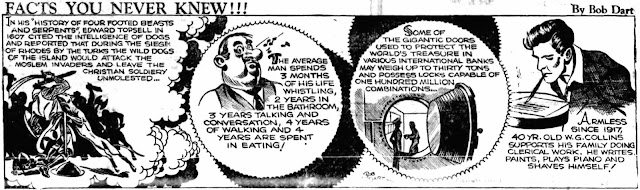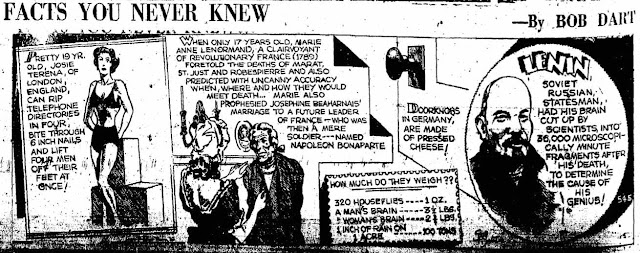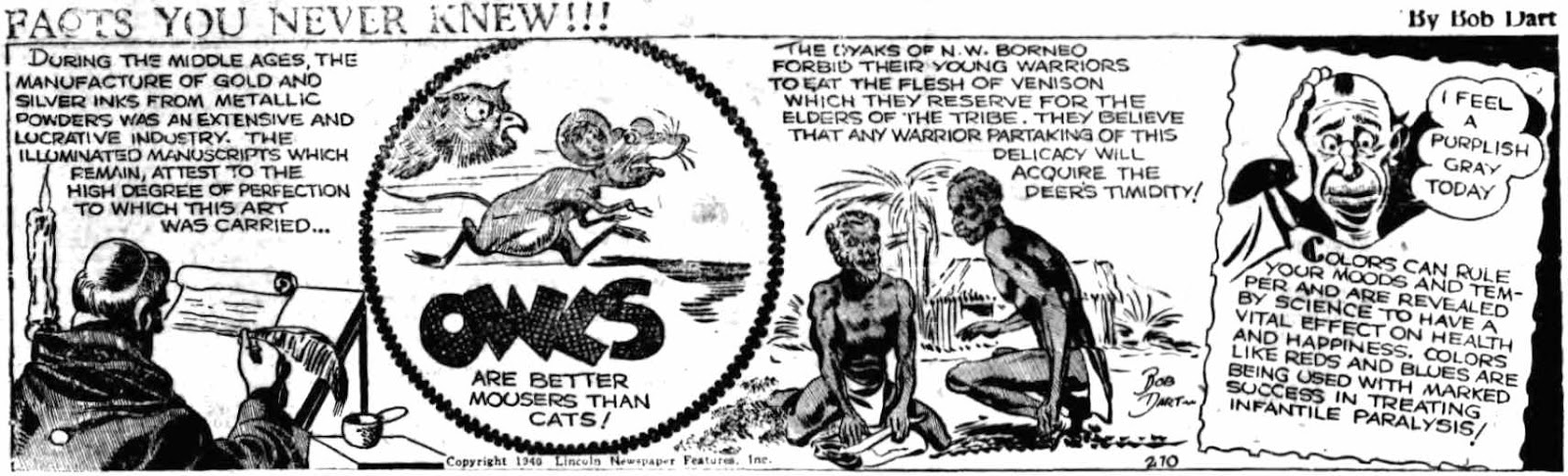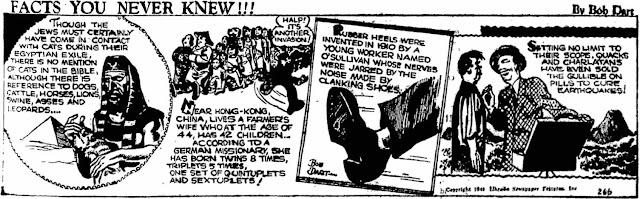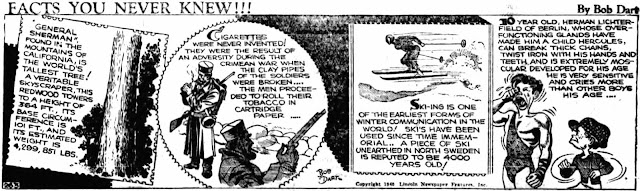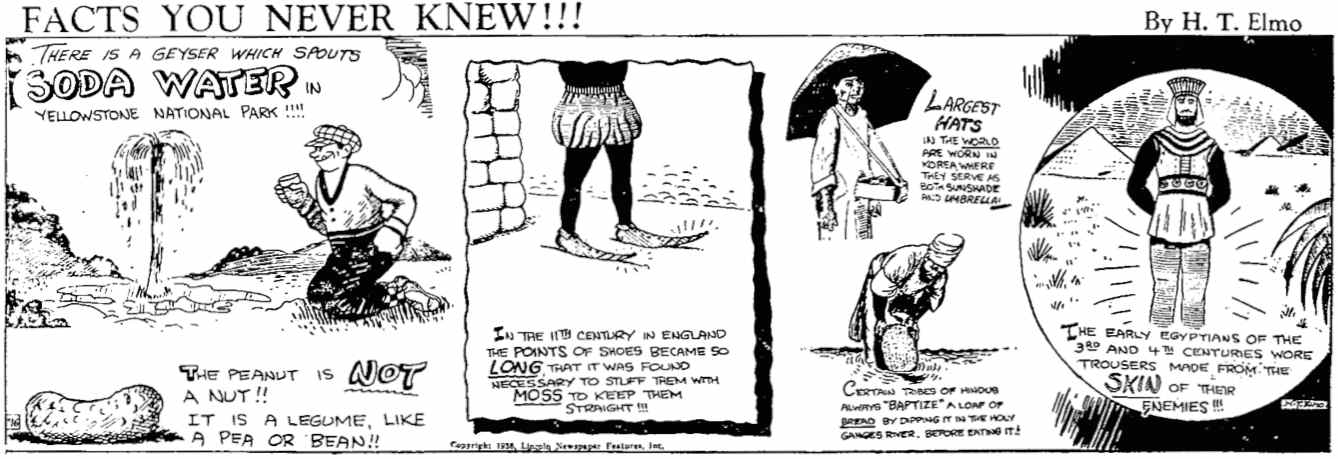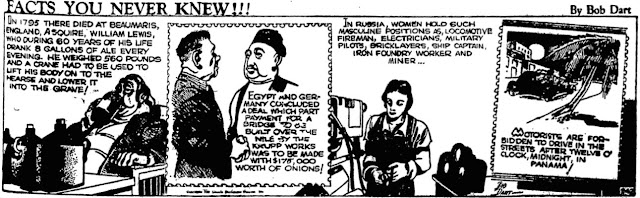
August 28 would have been Kirby’s 100th birthday.
“Facts You Never Knew” was a strip created by cartoonist H.T. Elmo (1903–1992). He is profiled here. The strip was copyrighted on March 20, 1936 and Elmo used the pseudonym Bob Dart. “Facts You Never Knew” was drawn by at least three artists: Elmo, Jack Kirby and an unidentified artist, possibly Irv Tirman.
In 1935 Elmo copyrighted five strips, “Detective Riley”, “Goofus Family”, “Little Buddy”, “Dash Dixon”, and “Laughs from the Day's News!” “Your Health Comes First!!!” was copyrighted a day ahead of “Facts You Never Knew”. All of the strips were distributed through Elmo’s Lincoln Newspaper Features which was based in New York City.
All of the strips were numbered. The lowest number I’ve found for “Facts You Never Knew” is 58 but it was preceded by an unnumbered strip that was published in the weekly newspaper The Attica News (Attica, New York), March 12, 1936; number 58 appeared the following week. The unnumbered “Facts You Never Knew”, signed by Lawrence in the third panel, appeared with three other Lincoln Newspaper Features strips: “Dash Dixon”, “Little Buddy” and “Detective Riley”, all numbered 57. Presumably Elmo created the pseudonyms Bob Dart and Lawrence.
The highest number I’ve found for “Facts You Never Knew” is 552 which appeared in Fords Beacon (New Jersey), August 9, 1945. Number 552 appeared first as 268 then 401. On August 16 and 23, and September 6, 1945, Fords Beacon printed a few more “Facts You Never Knew” that may have been numbers 553, 554 and 556. The Independent-Leader also published possible strip numbers 554 and 555 on August 23 and 30, 1945. The numbers on these strips were obscured or missing. Elmo reused many of the strips once and sometimes twice.
The following newspapers published significant numbers of “Facts You Never Knew” although there were gaps in each run.
Attica News, numbers 57 to 448
Fords Beacon, numbers 69 to 556(?)
Independent-Leader, numbers 361 to 555(?)
Medina Tribune, numbers 57 to 322
San Juan Record, numbers 93 to 196
The Wave, numbers 165 to 327
I believe Kirby’s first “Facts You Never Knew” was number 77 that was used again as number 147. Number 274 was Kirby’s last “Facts You Never Knew” and it reappeared as numbers 406 and 552. Kirby’s run was interrupted several times with strips by Elmo.
Greg Theakston wrote about “Facts You Never Knew” in his books The Complete Jack Kirby, Volume One, 1917–1940 (1997) and The Comic Strip Jack Kirby (2006). Here are the strips in The Complete Jack Kirby, Volume One, 1917–1940; I added keywords to help identify each strip.
82 Melted Butter; England; Fingers; Monograms
86 Egyptians; Mothers; New Zealand; Salt
221 Beggar; Jimmy Dorsey; Lightning; Photomania
253 Lammergeier; Apicius; Portugal; Frank Gilbert
On page 31 is a sidebar “Kirby or Not Kirby? That is the Question” with the strip titled “Curiosities and Oddities”, by Barton, which appeared in the Putnam County News, April 15, 1937. Theakston said he believed “Curiosities and Oddities” was a “lost” Kirby feature. My research found this strip was “Facts You Never Knew” number 64 in the Attica News, April 30, 1936. The strip was signed Lawrence in the Attica News but unsigned and unnumbered in the Putnam County News. Apparently Elmo resold the strip under a different title and artist. Also the “Curiosities and Oddities” art looks more like Elmo than Kirby.
Theakston wrote that Kirby’s mother saved proofs and clippings of her son’s strips and panels in a scrapbook. Theakston did not say how many strips of “Facts You Never Knew” were in the scrapbook. Apparently the scrapbook included strips by Elmo.
These are the “Facts You Never Knew” strips in The Comic Strip Jack Kirby.
82 Melted Butter; England; Fingers; Monograms
85 Chrysanthemum; Peter the Great; Evil Eye; Monte Carlo
87 Invitation Cards; Passports; Mah Jong; Persia
91 Raw Silk; Hair; Lead; Fan
95 Congo; Letter; Sweat; Scalps
97 Phoenician; Tatooed [sic]; Creoles; Handball
108 Minks; Coffee; Napoleon; Copper; Cotton
221 Beggar; Jimmy Dorsey; Lightning; Photomania
226 Martin Benson; Jacques Cartier; Stowaways; Ostriches
251 Emperor Claudius; Beau Brummell; Cardinal Richelieu; Papuans
Theakston said Kirby used the pseudonym Lawrence on the panel “Laughs from the Day’s News”. Panels number 79 (signed) and 88 (unsigned) were included in the first volume of The Complete Jack Kirby. Numbers 79, 87 (unsigned) and 88 (shown twice) appeared in The Comic Strip Jack Kirby. It’s not clear who came up with the pseudonym.
Theakston noted that Kirby also lettered his work. That observation was helpful in identifying strips by Kirby or with Kirby art.
An introduction to Elmo’s drawing style is necessary because his art should not be mistaken for early Kirby work. The following samples of Elmo’s work were found in the Street & Smith movie magazine Picture Play. He produced at least six installments of “Did You Know That” in these issues: November 1932 (below); December 1932 (below); January 1933 (below); February 1933; April 1933; and May 1933.
I have posted the strips, that I believe, are by Kirby in total or in part. The reprinted strips are included as well.
* * *
What follows is an annotated list of “Facts You Never Knew” with links to the newspapers Fords Beacon, Independent-Leader, Medina Tribune and San Juan Record. Images from the Attica News and The Wave are from the Old Fulton New York Postcards website. In addition to “Facts You Never Knew”, some newspapers had the Kirby panels “Laughs from the Day's News!”, “Your Health Comes First!!!” and/or “Our Puzzle Corner” on the same page.
The Attica News printed this advertisement on March 5, 1936.
57 Mayflower; Mississippi River; Toga; General Sherman
Attica News, March 12, 1936 0828.pdf; Medina Tribune, May 28, 1936
Attica News, March 19, 1936 0836.pdf; Medina Tribune, June 11, 1936; Smithtown Star, March 25, 1936 00044_2.pdf plus “Our Puzzle Corner” 58
59 Silk; Hair Color (art by another artist, possibly Kirby although she doesn’t look like other Kirby women); Book Monument; Cow Tree
Attica News, March 26, 1936 0844.pdf; Medina Tribune, June 18, 1936
60 (also 138) Fish-Pie; Walnut; Sheep’s Tails; Cobra Meat; Silk Garments
Attica News, March 26, 1936 0844.pdf; Medina Tribune, June 18, 1936
Below is a panel from “Detective Riley” number 175, a swipe from the strip above. The panel was printed in The Wave, July 7, 1938.
60 (also 138) Fish-Pie; Walnut; Sheep’s Tails; Cobra Meat; Silk Garments
Attica News, April 2, 1936 0852.pdf; Medina Tribune, June 25, 1936
61 Strings; Healing Rock; Fujiyama; Pick and Shovel
Attica News, April 9, 1936 0860.pdf; Smithtown Star, April 15, 1936 00054_2.pdf plus “Our Puzzle Corner” 61
62 Lakes; Einstein; Coffee (drawing of head used again in “Facts” 105); Marriage; Mail Carriers
Attica News, April 16, 1936 0868.pdf; Smithtown Star, April 22, 1936 00057_2.pdf plus “Our Puzzle Corner” 62
63 Trousers; Whiskers; Oysters; Coconuts; Castor Oil
Attica News, April 23, 1936 0875.pdf; Smithtown Star, April 29, 1936 00060_2.pdf plus “Our Puzzle Corner” 63
64 Gorillas; Elephants; Siberia; Brain; Bakery
Attica News, April 30, 1936 0883.pdf
65 Pirannas; Valparaiso, Chile; One Dollar; Ice-Boxes; Sturgeon
Attica News, May 7, 1936 0891.pdf; Medina Tribune, July 2, 1936; Smithtown Star, May 13, 1936 00066_2.pdf plus “Our Puzzle Corner” 65
66 San Luis Park; Silkworm Cocoon; Polar Bears; Splinter; Oriental Goby; Mt. Mwariye
Attica News, May 14, 1936 0899.pdf; Medina Tribune, July 9, 1936
67 Chimpanzee; Olive Trees; Butter; Heart; Muskrats; Tailor
Attica News, May 21, 1936 0907.pdf; Medina Tribune, July 16, 1936
68 Swimming Suits; Bicycle Race; Blind Fish; Phoenicians; Kangaroos
Attica News, May 28, 1936 0915.pdf; Medina Tribune, July 23, 1936
69 (also 139) Waste-Baskets; Lion Skin; Skunks; Stale Cake; Carnations; Pork
Attica News, June 4, 1936 0923.pdf; Fords Beacon, May 29, 1936; Medina Tribune, August 6, 1936
Attica News, April 9, 1936 0860.pdf; Smithtown Star, April 15, 1936 00054_2.pdf plus “Our Puzzle Corner” 61
Attica News, April 16, 1936 0868.pdf; Smithtown Star, April 22, 1936 00057_2.pdf plus “Our Puzzle Corner” 62
Attica News, April 23, 1936 0875.pdf; Smithtown Star, April 29, 1936 00060_2.pdf plus “Our Puzzle Corner” 63
Attica News, April 30, 1936 0883.pdf
Attica News, May 7, 1936 0891.pdf; Medina Tribune, July 2, 1936; Smithtown Star, May 13, 1936 00066_2.pdf plus “Our Puzzle Corner” 65
Attica News, May 14, 1936 0899.pdf; Medina Tribune, July 9, 1936
Attica News, May 21, 1936 0907.pdf; Medina Tribune, July 16, 1936
Attica News, May 28, 1936 0915.pdf; Medina Tribune, July 23, 1936
Attica News, June 4, 1936 0923.pdf; Fords Beacon, May 29, 1936; Medina Tribune, August 6, 1936
Numbers 70 to 76 are by Elmo.
70 (also 140) Holland; Carpet Tacks; Ben Franklin; Borneo; Ermine; Vest and Fez
Attica News, June 11, 1936 0931.pdf; Medina Tribune, July 30, 1936
Attica News, June 18, 1936 0939.pdf; Medina Tribune, August 20, 1936
Attica News, June 25, 1936 0946.pdf; Medina Tribune, August 13, 1936
Attica News, July 2, 1936 0954.pdf; Medina Tribune, August 27, 1936
Attica News, July 9, 1936 0961.pdf; Fords Beacon, July 24, 1936; Medina Tribune, September 3, 1936
Attica News, July 16, 1936 0967.pdf; Fords Beacon, July 10, 1936; Medina Tribune, September 10, 1936
Attica News, July 23, 1936 0973.pdf; Fords Beacon, July 17, 1936; Medina Tribune, September 17, 1936; Smithtown Star, July 29, 1936 00103_2.pdf plus “Our Puzzle Corner” 76
Numbers 77 through 98 are entirely or in part by Kirby; note his lettering style. The best available images are shown.
77 (also 147) Greeks; Human Hair; Louis XII; Australian Tribes
Attica News, August 6, 1936 0987.pdf
79 (also 149) Crow Indians; Australia; Egyptians; New South Wales
Attica News, August 13, 1936 0993.pdf
80 (also 150) Sir Walter Scott; Eyebrows; Navajos; Zulu Rain Doctor
Attica News, August 20, 1936 0998.pdf; Fords Beacon, August 14, 1936 plus Kirby’s “Your Health Comes First” 80
81 (also 151) Caterpillars; Hot Stones; Romans; Hebrews
Attica News, August 27, 1936 1005.pdf; Fords Beacon, August 21, 1936 plus Kirby’s “Your Health Comes First” 81; Medina Tribune, November 19, 1936
82 (also 152) Melted Butter; England; Fingers; Monograms
Attica News, September 10, 1936 1017.pdf; Fords Beacon, August 28, 1936 plus Kirby’s “Your Health Comes First” 82; Medina Tribune, November 12, 1936
83 (also 153) Golf; Women Actors; Australia; Lynching
Attica News, September 17, 1936 1022.pdf; Fords Beacon, September 4, 1936 plus Kirby’s “Your Health Comes First” 83; Medina Tribune, November 5, 1936
84 (also 154) New Born Baby; Black Cats; Arabs; Grave
Attica News, October 8, 1936 1040.pdf; Fords Beacon, September 11, 1936 plus Kirby’s “Your Health Comes First” 84 ; Medina Tribune, September 24, 1936
85 (also 155) Chrysanthemum; Peter the Great; Evil Eye; Monte Carlo
Attica News, October 15, 1936 1048.pdf; Medina Tribune, November 26, 1936; Smithtown Star, September 30, 1936 00136_2.pdf plus “Our Puzzle Corner” 85
86 (also 156) Egyptians; Mothers; New Zealand; Salt
Attica News, October 22, 1936 1056.pdf; Medina Tribune, December 3, 1936
87 (also 157) Invitation Cards; Passports; Mah Jong; Persia (by Elmo)
Attica News, November 5, 1936 1073.pdf; Medina Tribune, December 10, 1936
88 (also 158) Salt; Anvil; Chopsticks; Beauty
Attica News, November 12, 1936 1081.pdf; Medina Tribune, December 24, 1936; Smithtown Star, October 21, 1936 00148_2.pdf plus “Our Puzzle Corner” 88
89 (also 159) Charlemagne; Emporor [sic] of Germany; Uganda; Primitive Man
Attica News, November 19, 1936 1088.pdf; Medina Tribune, December 31, 1936
90 (also 160) Sneeze; Donkey; Hair; Wine Cup
Attica News, November 26, 1936 1096.pdf; Medina Tribune, January 7, 1937; Smithtown Star, November 4, 1936 00156_2.pdf plus “Our Puzzle Corner” 90
91 (also 161) Raw Silk; Hair; Lead; Fan
Attica News, December 3, 1936 1104.pdf; Medina Tribune, January 14, 1937
92 (also 162) Vikings; Two Names; Slapping; Coats (by Elmo); New Moon
Attica News, December 24, 1936 1126.pdf; Medina Tribune, January 21, 1937
93 (also 163) Barber Poles; Loki; Comanche Indians; Sharks
Attica News, December 31, 1936 1134.pdf; Medina Tribune, January 28, 1937; San Juan Record, December 24, 1936
94 (also 164) Savages; Puritans; Cloth; Indian Tribes
Attica News, January 7, 1937 1145.pdf; Medina Tribune, February 4, 1937; Smithtown Star, November 25, 1936 00170_2.pdf plus “Our Puzzle Corner” 95
95 (also 165) Congo; Letter; Sweat; Scalps
Attica News January 14, 1937; Medina Tribune, February 11, 1937; San Juan Record, February 4, 1937
96 (also 166) Mongols; Negro Chiefs; Polynesians; Tipping
Attica News, January 21, 1937 1161.pdf; Medina Tribune, February 18, 1937 ; San Juan Record, February 25, 1937
97 (also 167) Phoenician; Tattooed; Creoles; Handball
Attica News, January 28, 1937 1168.pdf; Medina Tribune, February 25, 1937; San Juan Record, February 18, 1937
98 (also 168) Bread; Scotland; Old Shoes; Recline
Attica News, February 4, 1937 1176.pdf; Fords Beacon, December 18, 1936 plus Kirby’s “Your Health Comes First” 98; Medina Tribune, March 4, 1937; San Juan Record, January 21, 1937; Smithtown Star, December 30, 1936 00190_2.pdf plus “Our Puzzle Corner” 98
Strips with Kirby art or lettering are shown below.
99 (also 169) Roofs; Goats’ Milk; Mourning; Fat; Cartagena, Columbia
Attica News, February 11, 1937 1184.pdf; Medina Tribune, March 11, 1937; San Juan Record, March 11, 1937; Smithtown Star, January 6, 1937 00004_1.pdf plus “Our Puzzle Corner” 99
100 (also 170) Worship Cows; Clothing; Echo Lake; Human Scalps
Attica News, February 18, 1937 1192.pdf; Fords Beacon, December 30, 1936; Medina Tribune, March 18, 1937; San Juan Record, March 25, 1937
101 (also 171) Removing Shoes; Silver Fox; Chaldeans; Gloves; Church Bell
Attica News, February 25, 1937 0022.pdf; Fords Beacon, January 15, 1937 plus Kirby’s “Your Health Comes First”102; Medina Tribune, March 25, 1937; San Juan Record, April 1, 1937
102 (also 172) Fish; Prayers; Columbus; Hindoos
Attica News, March 4, 1937 0030.pdf; Fords Beacon, January 22, 1937 plus Kirby’s “Your Health Comes First” 103; Medina Tribune, April 1, 1937; San Juan Record, April 8, 1937; Smithtown Star, January 27, 1937 00022_2.pdf plus “Our Puzzle Corner” 102
103 (also 173) Gun; Buttons; Stockings; Leather; Skunks
Attica News, March 11, 1937 0038.pdf; Fords Beacon, January 29, 1937 plus Kirby’s “Your Health Comes First” 104; Medina Tribune, April 8, 1937
104 (also 174) Sumatra; Central and South America; Napple; Celery Leaves; Swimming
Fords Beacon, February 5, 1937 plus Kirby’s “Your Health Comes First” 105; Medina Tribune, April 22, 1937; San Juan Record, May 27, 1937; Smithtown Star, February 10, 1937 00031_2.pdf plus “Our Puzzle Corner” 104
105 (also 175) Bow; Skulls; Coffins (Kirby lettering; drawing of head was first used in “Facts” 62); Fox Meat; Monkeys
Attica News, March 25, 1937 0054.pdf; Fords Beacon, February 12, 1937 plus Kirby’s “Your Health Comes First” 106; Medina Tribune, June 17, 1937; San Juan Record, June 10, 1937
106 (also 176) Wolf Fish; Shrimp; Oats; Shoes; Licorice
Attica News, April 1, 1937 0062.pdf; Medina Tribune, July 1, 1937
107 (also 177) Shoes; Fritz Babel; Spinosissimus; Shagu; Zebra Age; Tomatoes
Attica News, April 8, 1937 0070.pdf; Fords Beacon, February 26, 1937 plus Kirby’s “Your Health Comes First” 108; Medina Tribune, July 8, 1937
108 (also 178) Minks; Coffee; Napoleon; Copper; Cotton
Attica News, April 15, 1937 0078.pdf; Fords Beacon, March 5, 1937; plus Kirby’s “Your Health Comes First” 109; Medina Tribune, July 15, 1937
109 (also 179) Greeks; Bells; Mink; Formosa; Bali; Chinchilla
Attica News, April 22, 1937 0086.pdf; Fords Beacon, March 12, 1937 plus Kirby’s “Your Health Comes First” 110; Medina Tribune, July 22, 1937
110 (also 180) Indian; King James; Phoenicians; Sicily
Attica News, April 29, 1937 0094.pdf; Fords Beacon, March 19, 1937 plus Kirby’s “Your Health Comes First” 111; Medina Tribune, July 29, 1937
111 (also 181) Tin-Foil (by Kirby); Rattlesnake; Footwear (by Kirby); Hats; Steel Corsets (Kirby lettering)
Attica News, May 6, 1937 0102.pdf; Fords Beacon, March 26, 1937 plus Kirby’s “Your Health Comes First” 112; Medina Tribune, August 5, 1937; Smithtown Star, March 31, 1937 00067_2.pdf plus “Our Puzzle Corner” 111
112 (also 182) Woolen Garments; Sugar Cane (by Kirby); Skull; Swanee River (by Kirby)
Attica News, May 13, 1937 0110.pdf; Fords Beacon, April 2, 1937 plus Kirby’s “Your Health Comes First” 113; Medina Tribune, August 12, 1937; Smithtown Star, April 7, 1937 00073_2.pdf plus “Our Puzzle Corner” 112
113 (also 183) Druggists; Women; Coffin; Worship Plants
Attica News, May 20, 1937 0118.pdf; Fords Beacon, April 9, 1937 plus Kirby’s “Your Health Comes First” 114; Medina Tribune, August 19, 1937
114 (also 184) Pepper; Flies; Chinese Empress; Eels; Roof
Attica News, May 27, 1937 0126.pdf; Fords Beacon, April 16, 1937 plus Kirby’s “Your Health Comes First” 115; Medina Tribune, September 2, 1937; San Juan Record, June 17, 1937; Smithtown Star, April 21, 1937 00083_2.pdf plus “Our Puzzle Corner” 114
115 (also 185) Bushmen; Yosemite; Shoes; Perfumes; Wine
Attica News, June 3, 1937 0134.pdf; Fords Beacon, April 23, 1937 plus Kirby’s “Your Health Comes First” 116; Medina Tribune, September 9, 1937; Smithtown Star, April 28, 1937 00089_2.pdf plus “Our Puzzle Corner” 115
116 (also 186) Blue Fox; Cotton; Breakfast; Eggs; Trousers
Attica News, June 10, 1937 0142.pdf; Fords Beacon, April 30, 1937 plus Kirby’s “Your Health Comes First” 117; Medina Tribune, August 26, 1937; Smithtown Star, May 5, 1937 00094_2.pdf plus “Our Puzzle Corner” 116
117 (also 187) Sea-Weeds; Holland; Razor Blades; Grand Canyon; Sumatra; Silk Garments
Attica News, June 17, 1937 0150.pdf; Medina Tribune, September 16, 1937
118 (also 188) Vests (by Kirby); Coat; Chinchillas; Hats; Dyed Hair
Attica News, June 24, 1937 0158.pdf; Fords Beacon May 7, 1937; Medina Tribune, September 30, 1937
119 (also 189) Ice-Boxes; Drug Store; Pygmy Minks; Shoes; Cotton Garments
Attica News, July 1, 1937 0166.pdf; Fords Beacon, May 14, 1937 plus Kirby’s “Your Health Comes First” 118; Medina Tribune, October 21, 1937
120 (also 190) Egyptians; Portugal; Norway; Butter; Borneo
Attica News, July 8, 1937 0174.pdf; Fords Beacon, May 21, 1937 plus Kirby’s “Your Health Comes First” 120; Medina Tribune, November 11, 1937
Attica News, August 20, 1936 0998.pdf; Fords Beacon, August 14, 1936 plus Kirby’s “Your Health Comes First” 80
Attica News, August 27, 1936 1005.pdf; Fords Beacon, August 21, 1936 plus Kirby’s “Your Health Comes First” 81; Medina Tribune, November 19, 1936
Attica News, September 10, 1936 1017.pdf; Fords Beacon, August 28, 1936 plus Kirby’s “Your Health Comes First” 82; Medina Tribune, November 12, 1936
Attica News, September 17, 1936 1022.pdf; Fords Beacon, September 4, 1936 plus Kirby’s “Your Health Comes First” 83; Medina Tribune, November 5, 1936
Attica News, October 8, 1936 1040.pdf; Fords Beacon, September 11, 1936 plus Kirby’s “Your Health Comes First” 84 ; Medina Tribune, September 24, 1936
Attica News, October 15, 1936 1048.pdf; Medina Tribune, November 26, 1936; Smithtown Star, September 30, 1936 00136_2.pdf plus “Our Puzzle Corner” 85
Attica News, October 22, 1936 1056.pdf; Medina Tribune, December 3, 1936
Attica News, November 5, 1936 1073.pdf; Medina Tribune, December 10, 1936
Attica News, November 12, 1936 1081.pdf; Medina Tribune, December 24, 1936; Smithtown Star, October 21, 1936 00148_2.pdf plus “Our Puzzle Corner” 88
Attica News, November 19, 1936 1088.pdf; Medina Tribune, December 31, 1936
Attica News, November 26, 1936 1096.pdf; Medina Tribune, January 7, 1937; Smithtown Star, November 4, 1936 00156_2.pdf plus “Our Puzzle Corner” 90
Attica News, December 3, 1936 1104.pdf; Medina Tribune, January 14, 1937
Attica News, December 24, 1936 1126.pdf; Medina Tribune, January 21, 1937
Attica News, December 31, 1936 1134.pdf; Medina Tribune, January 28, 1937; San Juan Record, December 24, 1936
Attica News, January 7, 1937 1145.pdf; Medina Tribune, February 4, 1937; Smithtown Star, November 25, 1936 00170_2.pdf plus “Our Puzzle Corner” 95
Attica News January 14, 1937; Medina Tribune, February 11, 1937; San Juan Record, February 4, 1937
Attica News, January 21, 1937 1161.pdf; Medina Tribune, February 18, 1937 ; San Juan Record, February 25, 1937
Attica News, January 28, 1937 1168.pdf; Medina Tribune, February 25, 1937; San Juan Record, February 18, 1937
Attica News, February 4, 1937 1176.pdf; Fords Beacon, December 18, 1936 plus Kirby’s “Your Health Comes First” 98; Medina Tribune, March 4, 1937; San Juan Record, January 21, 1937; Smithtown Star, December 30, 1936 00190_2.pdf plus “Our Puzzle Corner” 98
Strips with Kirby art or lettering are shown below.
99 (also 169) Roofs; Goats’ Milk; Mourning; Fat; Cartagena, Columbia
Attica News, February 11, 1937 1184.pdf; Medina Tribune, March 11, 1937; San Juan Record, March 11, 1937; Smithtown Star, January 6, 1937 00004_1.pdf plus “Our Puzzle Corner” 99
Attica News, February 18, 1937 1192.pdf; Fords Beacon, December 30, 1936; Medina Tribune, March 18, 1937; San Juan Record, March 25, 1937
101 (also 171) Removing Shoes; Silver Fox; Chaldeans; Gloves; Church Bell
Attica News, February 25, 1937 0022.pdf; Fords Beacon, January 15, 1937 plus Kirby’s “Your Health Comes First”102; Medina Tribune, March 25, 1937; San Juan Record, April 1, 1937
102 (also 172) Fish; Prayers; Columbus; Hindoos
Attica News, March 4, 1937 0030.pdf; Fords Beacon, January 22, 1937 plus Kirby’s “Your Health Comes First” 103; Medina Tribune, April 1, 1937; San Juan Record, April 8, 1937; Smithtown Star, January 27, 1937 00022_2.pdf plus “Our Puzzle Corner” 102
103 (also 173) Gun; Buttons; Stockings; Leather; Skunks
Attica News, March 11, 1937 0038.pdf; Fords Beacon, January 29, 1937 plus Kirby’s “Your Health Comes First” 104; Medina Tribune, April 8, 1937
104 (also 174) Sumatra; Central and South America; Napple; Celery Leaves; Swimming
Fords Beacon, February 5, 1937 plus Kirby’s “Your Health Comes First” 105; Medina Tribune, April 22, 1937; San Juan Record, May 27, 1937; Smithtown Star, February 10, 1937 00031_2.pdf plus “Our Puzzle Corner” 104
105 (also 175) Bow; Skulls; Coffins (Kirby lettering; drawing of head was first used in “Facts” 62); Fox Meat; Monkeys
Attica News, March 25, 1937 0054.pdf; Fords Beacon, February 12, 1937 plus Kirby’s “Your Health Comes First” 106; Medina Tribune, June 17, 1937; San Juan Record, June 10, 1937
106 (also 176) Wolf Fish; Shrimp; Oats; Shoes; Licorice
Attica News, April 1, 1937 0062.pdf; Medina Tribune, July 1, 1937
107 (also 177) Shoes; Fritz Babel; Spinosissimus; Shagu; Zebra Age; Tomatoes
Attica News, April 8, 1937 0070.pdf; Fords Beacon, February 26, 1937 plus Kirby’s “Your Health Comes First” 108; Medina Tribune, July 8, 1937
108 (also 178) Minks; Coffee; Napoleon; Copper; Cotton
Attica News, April 15, 1937 0078.pdf; Fords Beacon, March 5, 1937; plus Kirby’s “Your Health Comes First” 109; Medina Tribune, July 15, 1937
109 (also 179) Greeks; Bells; Mink; Formosa; Bali; Chinchilla
Attica News, April 22, 1937 0086.pdf; Fords Beacon, March 12, 1937 plus Kirby’s “Your Health Comes First” 110; Medina Tribune, July 22, 1937
110 (also 180) Indian; King James; Phoenicians; Sicily
Attica News, April 29, 1937 0094.pdf; Fords Beacon, March 19, 1937 plus Kirby’s “Your Health Comes First” 111; Medina Tribune, July 29, 1937
111 (also 181) Tin-Foil (by Kirby); Rattlesnake; Footwear (by Kirby); Hats; Steel Corsets (Kirby lettering)
Attica News, May 6, 1937 0102.pdf; Fords Beacon, March 26, 1937 plus Kirby’s “Your Health Comes First” 112; Medina Tribune, August 5, 1937; Smithtown Star, March 31, 1937 00067_2.pdf plus “Our Puzzle Corner” 111
112 (also 182) Woolen Garments; Sugar Cane (by Kirby); Skull; Swanee River (by Kirby)
Attica News, May 13, 1937 0110.pdf; Fords Beacon, April 2, 1937 plus Kirby’s “Your Health Comes First” 113; Medina Tribune, August 12, 1937; Smithtown Star, April 7, 1937 00073_2.pdf plus “Our Puzzle Corner” 112
113 (also 183) Druggists; Women; Coffin; Worship Plants
Attica News, May 20, 1937 0118.pdf; Fords Beacon, April 9, 1937 plus Kirby’s “Your Health Comes First” 114; Medina Tribune, August 19, 1937
114 (also 184) Pepper; Flies; Chinese Empress; Eels; Roof
Attica News, May 27, 1937 0126.pdf; Fords Beacon, April 16, 1937 plus Kirby’s “Your Health Comes First” 115; Medina Tribune, September 2, 1937; San Juan Record, June 17, 1937; Smithtown Star, April 21, 1937 00083_2.pdf plus “Our Puzzle Corner” 114
115 (also 185) Bushmen; Yosemite; Shoes; Perfumes; Wine
Attica News, June 3, 1937 0134.pdf; Fords Beacon, April 23, 1937 plus Kirby’s “Your Health Comes First” 116; Medina Tribune, September 9, 1937; Smithtown Star, April 28, 1937 00089_2.pdf plus “Our Puzzle Corner” 115
116 (also 186) Blue Fox; Cotton; Breakfast; Eggs; Trousers
Attica News, June 10, 1937 0142.pdf; Fords Beacon, April 30, 1937 plus Kirby’s “Your Health Comes First” 117; Medina Tribune, August 26, 1937; Smithtown Star, May 5, 1937 00094_2.pdf plus “Our Puzzle Corner” 116
117 (also 187) Sea-Weeds; Holland; Razor Blades; Grand Canyon; Sumatra; Silk Garments
Attica News, June 17, 1937 0150.pdf; Medina Tribune, September 16, 1937
118 (also 188) Vests (by Kirby); Coat; Chinchillas; Hats; Dyed Hair
Attica News, June 24, 1937 0158.pdf; Fords Beacon May 7, 1937; Medina Tribune, September 30, 1937
119 (also 189) Ice-Boxes; Drug Store; Pygmy Minks; Shoes; Cotton Garments
Attica News, July 1, 1937 0166.pdf; Fords Beacon, May 14, 1937 plus Kirby’s “Your Health Comes First” 118; Medina Tribune, October 21, 1937
120 (also 190) Egyptians; Portugal; Norway; Butter; Borneo
Attica News, July 8, 1937 0174.pdf; Fords Beacon, May 21, 1937 plus Kirby’s “Your Health Comes First” 120; Medina Tribune, November 11, 1937
121 (also 191) Suits; Floating Garden; Prescriptions; Raccoons; Overcoats; Korea
Fords Beacon, May 28, 1937 plus Kirby’s “Your Health Comes First” 121; Medina Tribune, November 18, 1937
122 (also 192) Furs: Spain, Greenland, Tripoli; Raccoon Cubs; Chocolate; Cato
Fords Beacon, June 4, 1937; Medina Tribune, November 25, 1937
123 (also 193) Chinese; Zulu; Fiji; Potatoes; Sandals
Attica News, July 22, 1937 0190.pdf; Fords Beacon, June 11, 1937; Medina Tribune, December 2, 1937
123 (also 193) Chinese; Zulu; Fiji; Potatoes; Sandals
Attica News, July 22, 1937 0190.pdf; Fords Beacon, June 11, 1937; Medina Tribune, December 2, 1937
124 (also 194) Rugs: Oriental; Rajahs; Museums; Persians
Attica News, July 22, 1937 0190.pdf; Fords Beacon, June 18, 1937; Medina Tribune, December 9, 1937
Attica News, July 29, 1937 0198.pdf; Medina Tribune, December 16, 1937
126 (also 196) Mirrors; Jackets; Eats Books; Cat; Blood-Root Plant
Attica News, July 29, 1937 0198.pdf; Medina Tribune, December 23, 1937
127 (also 197) Donkeys; Sea Horses; Tombstone; Coffins (Kirby lettering); Fortress
Medina Tribune, January 6, 1938; Smithtown Star, July 21, 1937 00154_2.pdf plus “Our Puzzle Corner” 127
128 (also 198) Ostrich Eggs; Evil Eye; Arab Woman; Rub Noses
Fords Beacon, July 16, 1937; Medina Tribune, December 30, 1937; National Road Traveler, July 4, 1940
129 (also 199) Buttons; Champagne; Muskrats; Swimmer (swam into “Facts” 130); Royal Color (looks like Kirby art)
Attica News, August 12, 1937 0214.pdf; Medina Tribune, February 10, 1938; National Road Traveler, February 1, 1945
Attica News, August 12, 1937 0214.pdf; Fords Beacon, July 30, 1937; Medina Tribune, February 17, 1938; National Road Traveler, February 1, 1945
131 (also 201) Swineherds; Vikings; Nero; Silk (by Elmo); Cacao Beans (by Elmo)
Attica News, August 19, 1937 0222.pdf; Medina Tribune, February 24, 1938; National Road Traveler, June 6, 1940
Attica News, August 19, 1937 0222.pdf; Fords Beacon, August 13, 1937; Medina Tribune, March 10, 1938; Smithtown Star, August 25, 1937 00179_2.pdf plus “Our Puzzle Corner” 132
133 (also 203) Chipmunk; Egypt (Kirby art, Elmo lettering); Gloves; Silk Garments; Soap (by Kirby)
Attica News, September 2, 1937 0238.pdf; Medina Tribune, March 17, 1938
Attica News, September 2, 1937 0238.pdf; Fords Beacon, August 27, 1937; Medina Tribune, March 24, 1938; National Road Traveler, June 6, 1940; Smithtown Star, September 8, 1937 00189_2.pdf plus “Our Puzzle Corner” 134
Attica News, September 16, 1937 0254.pdf; Fords Beacon, September 3, 1937; Medina Tribune, March 31, 1938; National Road Traveler, April 18, 1940; Smithtown Star, September 15, 1937 00194_2.pdf plus “Our Puzzle Corner” 135
Attica News, September 23, 1937 0262.pdf; Fords Beacon, September 10, 1937; Medina Tribune, April 7, 1938; National Road Traveler, April 18, 1940; Smithtown Star, September 22, 1937 00197_2.pdf plus “Our Puzzle Corner” 136
137 (also 58) Tobacco; Frankfurters; Pretzels; Bismarck
Attica News, October 7, 1937 0262.pdf; Medina Tribune, May 26, 1938
Attica News, October 7, 1937 0278.pdf; Fords Beacon, October 1, 1937; Medina Tribune, January 20, 1938; Smithtown Star, October 6, 1937 00207_2.pdf plus “Our Puzzle Corner” 138
139 (also 69) Waste-Baskets; Lion Skin; Skunks; Stale Cake; Carnations; Pork
Attica News, September 23, 1937 0278.pdf; Fords Beacon, December 3, 1937; Medina Tribune, January 13, 1938; Smithtown Star, September 29, 1937 00202_2.pdf plus “Our Puzzle Corner” 139
Attica News, October 14, 1937 0286.pdf; Medina Tribune, April 21, 1938
141 (also 71) Soap; Rags; Ham; Shoes; Minks; Perfume
Attica News, October 21, 1937 0294.pdf; Fords Beacon, September 24, 1937; Smithtown Star, October 27, 1937 00223_2.pdf plus “Our Puzzle Corner” 141
142 (also 72) Hat; Jewels and Gems; Underwater; Garments
Attica News, October 28, 1937 0302.pdf; Fords Beacon, October 22, 1937; Smithtown Star, October 20, 1937 00218_1.pdf plus “Our Puzzle Corner” 140
143 (also 73) Candy; Fish; Cow; Prison; Rose Petals; Limburger Cheese; High-Heeled Shoes
Attica News, November 4, 1937 0310.pdf; Medina Tribune, April 28, 1938; National Road Traveler, August 17, 1944; Smithtown Star, November 10, 1937 00236_2.pdf plus “Our Puzzle Corner” 143
144 (also 74) Spark; Ice Cream Cone; Silk Hats; Saw-Dust and Mushrooms
Attica News, November 11, 1937 0318.pdf; Fords Beacon, November 12, 1937; Medina Tribune, May 5, 1938; National Road Traveler, August 17, 1944; San Juan Record, January 20, 1938
145 (also 75) Ad; Diplomas; Bans; Bread; Mt. Irazu; Church-Bell
Attica News, November 18, 1937 0325.pdf; Medina Tribune, May 12, 1938; San Juan Record, January 27, 1938; Smithtown Star, November 24, 1937 00246_2.pdf plus “Our Puzzle Corner” 145
146 (also 76) Soda Water; Legume; Moss; Hats; Baptize; Skin
Attica News, November 25, 1937 0334.pdf; Medina Tribune, May 19, 1938; Smithtown Star, December 1, 1937 00252_1.pdf plus “Our Puzzle Corner” 146
Numbers 147 to 168 are Kirby reprints
147 (also 77) Greeks; Human Hair; Louis XII; Australian Tribes
Attica News, December 2, 1937 0342.pdf; Medina Tribune, July 14, 1938; San Juan Record, February 10, 1938; Smithtown Star, December 8, 1937 00258_1.pdf plus “Our Puzzle Corner” 147
Fords Beacon, December 10, 1937; Medina Tribune, April 14, 1938; San Juan Record, February 17, 1938
149 (also 79) Crow Indians; Australia; Egyptians; New South Wales
Medina Tribune, September 7, 1939; San Juan Record, April 7, 1938
150 (also 80) Sir Walter Scott; Eyebrows; Navajos; Zulu Rain Doctor
Fords Beacon, December 23, 1937; Medina Tribune, September 14, 1939; San Juan Record, April 14, 1938
151 (also 81) Caterpillars; Hot Stones; Romans; Hebrews
Attica News, January 6, 1938 0385.pdf; Medina Tribune, September 21, 1939; National Road Traveler, August 17, 1944; San Juan Record, May 12, 1938
Medina Tribune, October 5, 1939; National Road Traveler, August 17, 1940; Smithtown Star, January 12, 1938 00016_2.pdf plus “Our Puzzle Corner” 152
153 (also 83) Golf; Women Actors; Australia; Lynching
Attica News, January 13, 1938 0393.pdf; Fords Beacon, January 14, 1938; Medina Tribune, October 19, 1939; San Juan Record, May 26, 1938
Fords Beacon, January 21, 1938; Medina Tribune, November 9, 1939; San Juan Record, June 2, 1938
155 (also 85) Chrysanthemum; Peter the Great; Evil Eye; Monte Carlo
Attica News, January 20, 1938: 0401.pdf; Medina Tribune, November 24, 1938; San Juan Record, March 17, 1938
Attica News, January 27, 1938 0407.pdf; Medina Tribune, December 1, 1938; San Juan Record, June 16, 1938; Smithtown Star, February 9, 1938 00035_2.pdf plus “Our Puzzle Corner” 156
Attica News, March 10, 1938 0445.pdf; Fords Beacon, February 18, 1938; Medina Tribune, December 22, 1938; San Juan Record, June 23, 1938
Attica News, March 17, 1938 0453.pdf; Medina Tribune, December 29, 1938; San Juan Record, July 21, 1938
Attica News, March 24, 1938 0461.pdf; Fords Beacon, March 4, 1938; Medina Tribune, January 5, 1939; San Juan Record, June 30, 1938
Attica News, March 31, 1938 0469.pdf; Medina Tribune, March 2, 1939; National Road Traveler, August 3, 1940; San Juan Record, August 4, 1938; Smithtown Star, March 9, 1938 00053_1.pdf plus “Our Puzzle Corner” 160
161 (also 91) Raw Silk; Hair; Lead; Fan
Attica News, April 7, 1938 0477.pdf; Medina Tribune, May 4, 1939; San Juan Record, March 31, 1938
Attica News, April 14, 1938 0485.pdf; Fords Beacon, March 25, 1938; Medina Tribune, April 20, 1939; San Juan Record, May 5, 1938
Attica News, April 21, 1938 0493.pdf; Fords Beacon, April 1, 1938; Medina Tribune, May 11, 1939
Attica News, April 28, 1938 0501.pdf; Medina Tribune, May 18, 1939
Attica News, May 5, 1938 0509.pdf; Fords Beacon, April 22, 1938; Medina Tribune, June 1, 1939; The Wave, June 2, 1938 0624.pdf
Attica News, May 12, 1938 0517.pdf; Medina Tribune, June 22, 1939; The Wave, June 9, 1938 0632.pdf
Attica News, May 19, 1938 0525.pdf; Medina Tribune, June 2, 1938; San Juan Record, August 11, 1938; The Wave, April 14, 1938 0559.pdf
Attica News, May 26, 1938 0533.pdf; Fords Beacon, April 15, 1938; Medina Tribune, June 9, 1938; San Juan Record, August 18, 1938; The Wave, April 28, 1938 0574.pdf
Attica News, June 2, 1938 0541.pdf; Fords Beacon, May 6, 1938; Medina Tribune, June 16, 1938; San Juan Record, September 1, 1938; The Wave, May 12, 1938; 0594.pdf
170 (also 100) Worship Cows; Clothing; Echo Lake; Human Scalps
Attica News, June 9, 1938 0549.pdf; Medina Tribune, June 23, 1938; San Juan Record, November 17, 1938; The Wave, May 5, 1938; 0585.pdf
171 (also 101) Removing Shoes; Silver Fox; Chaldeans; Gloves; Church Bell
Attica News, June 16, 1938 0557.pdf; Fords Beacon, May 20, 1938; Medina Tribune, June 30, 1938; The Wave, May 26, 1938; 0610.pdf
172 (also 102) Fish; Prayers; Columbus; Hindoos
Attica News, June 23, 1938 0565.pdf; Fords Beacon, May 27, 1938; Medina Tribune, July 7, 1938; The Wave, May 19, 1938; 0602.pdf
173 (also 103) Gun; Buttons; Stockings; Leather; Skunks
Attica News, June 30, 1938 0573.pdf; Fords Beacon, June 3, 1938; Medina Tribune, March 9, 1939
174 (also 104) Sumatra; Central and South America; Napple; Celery Leaves; Swimming
Attica News, July 7, 1938 0581.pdf; Medina Tribune, March 23, 1939; The Wave, June 16, 1938; 0640.pdf
175 (also 105) Bow; Skulls; Coffins; Fox Meat; Monkeys
Attica News, July 14, 1938 0589.pdf; Fords Beacon, June 17, 1938; Medina Tribune, April 6, 1939; The Wave, July 7, 1938 0664.pdf
176 (also 106) Wolf Fish; Shrimp; Oats; Shoes; Licorice
Attica News, July 28, 1938 0603.pdf; Fords Beacon, June 24, 1938; Medina Tribune, April 13, 1939; The Wave, June 28, 1938 0656.pdf
177 (also 107) Shoes; Fritz Babel; Spinosissimus; Shagu; Zebra Age; Tomatoes
Fords Beacon, July 1, 1938; Medina Tribune, April 27, 1939; The Wave, June 21, 1938 0648.pdf
178 (also 108) Minks; Coffee; Napoleon; Copper; Cotton
Attica News, August 11, 1938 0619.pdf; Fords Beacon, July 8, 1938; Medina Tribune, May 25, 1939; Smithtown Star, July 13, 1938 00171_1.pdf plus “Our Puzzle Corner” 178; The Wave, July 28, 1938 0688.pdf
178 (also 108) Minks; Coffee; Napoleon; Copper; Cotton
Attica News, August 11, 1938 0619.pdf; Fords Beacon, July 8, 1938; Medina Tribune, May 25, 1939; Smithtown Star, July 13, 1938 00171_1.pdf plus “Our Puzzle Corner” 178; The Wave, July 28, 1938 0688.pdf
179 (also 109) Greeks; Bells; Mink; Formosa; Bali; Chinchilla
Attica News, August 18, 1938 0627.pdf; Fords Beacon, July 15, 1938; Medina Tribune, July 21, 1938; The Wave, July 14, 1938 0672.pdf
180 (also 110) South American Indian; King James; Phoenicians; Sicily
Attica News, September 22, 1938 0667.pdf; Fords Beacon, August 26, 1938; Medina Tribune, October 27, 1938; The Wave, September 1, 1938 0728.pdf
Numbers 181, 182, 188, 194, 198, 199 and 201 to 206 are Kirby reprints.
181 (also 111) Tin-Foil (by Kirby); Rattlesnake; Footwear (Kirby lettering); Hats; Steel Corsets (Kirby lettering)
Attica News, September 1, 1938 0643.pdf; Fords Beacon, August 5, 1938; Medina Tribune, August 4, 1938; The Wave, July 21, 1938 0680.pdf
Attica News, August 25, 1938 0635.pdf; Fords Beacon, July 22, 1938; Medina Tribune, July 28, 1938; The Wave, August 4, 1938 0696.pdf
Attica News, September 8, 1938 0651.pdf; Fords Beacon, August 12, 1938; Medina Tribune, August 11, 1938; Smithtown Star, August 10, 1938 00192_1.pdf plus “Our Puzzle Corner” 180; The Wave, August 18, 1938 0712.pdf
184 (also 114) Pepper; Plague of Flies; Chinese Empress; Eels; Roof
Attica News, September 15, 1938 0126.pdf; Fords Beacon, August 19, 1938; Medina Tribune, August 18, 1938; Smithtown Star, August 17, 1938 00197_2.pdf plus “Our Puzzle Corner” 183; The Wave, August 11, 1938 0704.pdf
185 (also 115) Bushmen; Yosemite; Shoes; Perfumes; Wine
Attica News, November 17, 1938 0731.pdf; Fords Beacon, September 30, 1938; Medina Tribune, September 22, 1938; The Wave, September 22, 1938 0752.pdf
186 (also 116) Blue Fox; Cotton; Breakfast; Eggs; Trousers
Attica News, October 27, 1938 0707.pdf; Fords Beacon, September 23, 1938; Medina Tribune, August 25, 1938; The Wave, October 20, 1938 0784.pdf
187 (also 117) Sea-Weeds; Holland; Razor Blades; Grand Canyon; Sumatra; Silk Garments
Attica News, September 29, 1938 0675.pdf; Fords Beacon, July 29, 1938; Medina Tribune, September 15, 1938; The Wave, August 25, 1938 0720.pdf
188 (also 118) Vests (by Kirby); Coat; Chinchillas; Hats; Dyed Hair
Attica News, October 20, 1938 0699.pdf; Fords Beacon, September 16, 1938; Medina Tribune, September 1, 1938; The Wave, September 29, 1938 0760.pdf
Attica News, October 13, 1938 0691.pdf; Fords Beacon, September 9, 1938; Medina Tribune, September 29, 1938; The Wave, September 8, 1938 0736.pdf
190 (also 120) Egyptians; Portugal; Norway; Butter; Borneo
Attica News, October 6, 1938 0683.pdf; Fords Beacon, September 2, 1938; Medina Tribune, September 8, 1938; The Wave, September 15, 1938 0744.pdf
191 (also 121) Suits; Floating Garden; Prescriptions; Raccoons; Overcoats; Korea
Attica News, January 5, 1939 0792.pdf; Fords Beacon, November 10, 1938; Medina Tribune, December 8, 1938; Smithtown Star, November 16, 1938 00306_1.pdf plus “Our Puzzle Corner” 191; The Wave, November 24, 1938 0825.pdf
192 (also 122) Furs: Spain, Greenland, Tripoli; Raccoon Cubs; Chocolate; Cato
Attica News, November 24, 1938 0739.pdf; Fords Beacon, October 14, 1938; Medina Tribune, October 13, 1938; San Juan Record, October 6, 1938; The Wave, December 1, 1938 0833.pdf
193 (also 123) Chinese; Zulu; Fiji; Potatoes; Sandals
Attica News, January 5, 1939 0788.pdf; Fords Beacon, November 4, 1938; Medina Tribune, November 17, 1938; The Wave, October 13, 1938 0776.pdf
194 (also 124) Rugs: Oriental; Rajahs; Museums; Persians
Attica News, December 15, 1938 0762.pdf; Fords Beacon, October 28, 1938; Medina Tribune, November 10, 1938; The Wave, October 6, 1938 0768.pdf
195 (also 125) Beaver; Yunnang Tribes; Foxes’ Tongues; Ponce de Leon; Turbans
Attica News, December 1, 1938 0747.pdf; Fords Beacon, October 21, 1938; Medina Tribune, November 3, 1938
196 (also 126) Mirrors; Jackets; Eats Books; Cat; Blood-Root Plant
Fords Beacon, October 7, 1938; Medina Tribune, October 6, 1938; San Juan Record, September 29, 1938; The Wave, October 27, 1938 0792.pdf
197 (also 127) Donkeys; Sea Horses; Tombstone; Coffins (Kirby lettering); Fortress
Attica News, January 19, 1939 0808.pdf; Fords Beacon, November 23, 1938; Medina Tribune, January 19, 1939; The Wave, December 15, 1938 0849.pdf
198 (also 128) Ostrich Eggs; Evil Eye; Arab Woman; Rub Noses
Attica News, February 2, 1939 0824.pdf; Fords Beacon, January 20, 1939; Medina Tribune, March 30, 1939; The Wave, December 8, 1938 0841.pdf
199 (also 129) Buttons; Champagne; Muskrats; Swimmer; Royal Color (looks like Kirby art)
Attica News, January 12, 1939 0800.pdf; Fords Beacon, November 18, 1938; Medina Tribune, January 26, 1939; The Wave, December 29, 1938 0867.pdf
200 (also 130) Roofs; Iodine; Swimmer; Sheep; Hats
Attica News, February 9, 1939 0832.pdf; Fords Beacon, January 27, 1939; Medina Tribune, February 16, 1939; The Wave, January 12, 1939 0015.pdf
201 (also 131) Swineherds (by Kirby); Vikings (by Kirby); Nero (by Kirby); Silk (by Elmo); Cacao Beans (by Elmo)
Attica News, February 16, 1939 0840.pdf; Fords Beacon, February 3, 1939; Medina Tribune, February 23, 1939
Attica News, January 26, 1939 0816.pdf; Fords Beacon, December 2, 1938; Medina Tribune, January 12, 1939; Smithtown Star, December 28, 1938 00351_1.pdf plus “Our Puzzle Corner” 202; The Wave, November 17, 1938 0817.pdf
Attica News, March 30, 1939 0888.pdf; Fords Beacon, December 30, 1938; Medina Tribune, September 25, 1941; National Road Traveler, April 18, 1940; The Wave, January 26, 1939 0032.pdf
Attica News, April 13, 1939 0904.pdf; Fords Beacon, January 13, 1939; Medina Tribune, October 16, 1941; The Wave, January 20 [19], 1939 0023.pdf
Attica News, April 6, 1939 0896.pdf; Fords Beacon, January 6, 1939; Medina Tribune, September 25, 1941
Attica News, March 23, 1939 0880.pdf; Medina Tribune, September 18, 1941; Smithtown Star, January 1939 00015_1.pdf; The Wave, January 5, 1939 0007.pdf
207 Hard Wood; Polar Bear (by Elmo); Cacao Beans; Ukelele (by Elmo)
Attica News, February 23, 1939 0848.pdf; Fords Beacon, December 9, 1938
Attica News, March 9, 1939 0864.pdf; Fords Beacon, December 16, 1938; Independent Leader, August 11, 1944; Medina Tribune, August 14, 1941; Smithtown Star, February 1939 00030_2.pdf
Fords Beacon, February 10, 1939; Independent Leader, August 25, 1944; Medina Tribune, November 6, 1941; The Wave, February 9, 1939 0050.pdf
210 (also 503) Tibet; Honduras; Ben Franklin (by Elmo); Topotes Ejaculator (by Elmo); Palm Leaves (by Elmo)
Attica News, April 27, 1939 0920.pdf; Fords Beacon, February 17, 1939; Independent Leader, September 1, 1944; Medina Tribune, September 11, 1941; Smithtown Star, February 1939 00040_2.pdf; The Wave, February 16, 1939 0058.pdf
211 Kitten; Collectomania; Garbo; 5 GallonAttica News, April 27, 1939 0920.pdf; Fords Beacon, February 17, 1939; Independent Leader, September 1, 1944; Medina Tribune, September 11, 1941; Smithtown Star, February 1939 00040_2.pdf; The Wave, February 16, 1939 0058.pdf
Attica News, May 4, 1939 0928.pdf; Fords Beacon, February 24, 1939; Medina Tribune, September 18, 1941; Smithtown Star, February 1939 00045_2.pdf; The Wave, February 23, 1939 0066.pdf
Attica News, May 11, 1939 0936.pdf; Fords Beacon, March 3, 1939; Independent Leader, September 8, 1944; Medina Tribune, November 20, 1941; The Wave, February 2, 1939 0041.pdf
Fords Beacon, March 10, 1939; Independent Leader, September 15, 1944; Medina Tribune, November 20, 1941; The Wave, March 2, 1939 0074.pdf
Attica News, June 1, 1939 0960.pdf; Fords Beacon, March 17, 1939; Independent Leader, September 21, 1944; Medina Tribune, November 20, 1941; Smithtown Star, March 22, 1939 00060_2.pdf; The Wave, March 9, 1939 0082.pdf
Attica News, June 8, 1939 0968.pdf; Fords Beacon, March 24, 1939; Independent Leader, September 28, 1944; Medina Tribune, January 11, 1940; The Wave, March 16, 1939 0090.pdf
Attica News, June 15, 1939 0976.pdf; Fords Beacon, March 31, 1939; Independent Leader, October 26, 1944; Smithtown Star, April 5, 1939 00071_2.pdf; The Wave, March 23, 1939 0098.pdf
Attica News, June 22, 1939 0984.pdf; Fords Beacon, April 14, 1939; Independent Leader, October 5, 1944; Medina Tribune, February 15, 1940; Smithtown Star, April 12, 1939 00076_2.pdf; The Wave, April 13, 1939 0122.pdf
Independent Leader, October 12, 1944; Medina Tribune, January 25, 1940; Smithtown Star, April 19, 1939 00081_2.pdf; The Wave, April 20, 1939 0130.pdf
Attica News, June 29, 1939 0992.pdf; Fords Beacon, April 21, 1939; Independent Leader, May 3, 1945; Medina Tribune, February 22, 1940; Smithtown Star, April 26, 1939 00086_2.pdf; The Wave, March 30, 1939 0106.pdf
Independent Leader, November 2, 1944; Medina Tribune, March 6, 1941; National Road Traveler, July 18, 1940; The Wave, April 6, 1939 0114.pdf
Attica News, July 6, 1939 1000.pdf; Independent Leader, May 10, 1945; Medina Tribune, November 6, 1941; National Road Traveler, July 25, 1940
Independent Leader, October 19, 1944; Medina Tribune, October 16, 1941; The Wave, April 27, 1939
Attica News, July 13, 1939 1008.pdf; Fords Beacon, May 19, 1939; Independent Leader, November 9, 1944; Medina Tribune, October 2, 1941; National Road Traveler, August 8, 1940
Fords Beacon, May 26, 1939; Independent Leader, November 16, 1944; Medina Tribune, October 2, 1941; The Wave, May 11, 1939 0154.pdf
225 (also 516) St. Bernard Dog; Zika Terzic; Bible; Chiang Kai-Shek
Attica News, July 20, 1939 1016.pdf; Fords Beacon, June 2, 1939; Independent Leader, November 22, 1944; Medina Tribune, March 27, 1941; National Road Traveler, August 15, 1940; Smithtown Star, 1939 00116_2.pdf; The Wave, June 1, 1939 0178.pdf
Independent Leader, November 30, 1944; Medina Tribune, August 14, 1941; National Road Traveler, September 12, 1940
Attica News, July 27, 1939 1024.pdf; Independent Leader, December 7, 1944; Medina Tribune, June 8, 1939; National Road Traveler, January 4, 1940; The Wave, June 8, 1939
Independent Leader, December 14, 1944; Medina Tribune, June 15, 1939; National Road Traveler, January 18, 1940; The Wave, June 22, 1939 0208.pdf
Attica News, August 3, 1939 1032.pdf; Independent Leader, December 21, 1944; Medina Tribune, July 6, 1939; National Road Traveler, March 14, 1940; The Wave, July 13, 1939 0232.pdf
Medina Tribune, July 20, 1939; National Road Traveler, April 4, 1940; The Wave, June 29, 1939 0216.pdf
Attica News, August 10, 1939 1040.pdf; Independent Leader, December 28, 1944; Medina Tribune, August 3, 1939; National Road Traveler, January 25, 1940; Smithtown Star, July 19, 1939 00146_2.pdf; The Wave, July 6, 1939 0224.pdf
232 (also 522) Dogs; Knights; Kiss; Joine Arbus
Independent Leader, January 4, 1945; Medina Tribune, August 31, 1939; The Wave, July 20, 1939
233 (also 541) Tooth-Ache; Otto von Bismarck; Fingerprint; 50 Million Frenchmen
Attica News, August 17, 1939 1048.pdf; Independent Leader, May 24, 1945; Medina Tribune, June 29, 1939; Smithtown Star, August 2, 1939 00156_2.pdf; The Wave, August 10, 1939 0264.pdf
234 (also 523) Mecca; Antoine Pataki; Arctic Husky
Independent Leader, January 11, 1945; Medina Tribune, July 13, 1939; The Wave, August 3, 1939 0256.pdf
235 (also 524) Tarantula Spiders; Chase National Bank; Gablonz, Slovakia; Ghost Bus
Attica News, August 24, 1939 1056.pdf; Independent Leader, January 18, 1945; Medina Tribune, July 27, 1939; The Wave, August 24, 1939
236 (also 525) Cameras; Seaweed; Greyhound; China; 1956
Attica News, August 31, 1939 1064.pdf; Independent Leader, January 25, 1945; Medina Tribune, August 10, 1939; The Wave, July 27, 1939
237 (also 526) Athens; ABC’s of Motoring; Herbert Brown; Mr. Absher
Attica News, September 7, 1939 1072.pdf; Independent Leader, February 1, 1945; Medina Tribune, August 17, 1939; The Wave, August 24, 1939 0272.pdf
238 (also 527) Slant Eyes; Sophia Nishtchevitch; James Crichton; Wars
Attica News, September 14, 1939 1080.pdf; Independent Leader, February 8, 1945; Medina Tribune, August 24, 1939; The Wave, September 14, 1939 0304.pdf
239 (also 528) Chow Dogs; Black Hollywood; T. N. Koffey; Bulgaria
Attica News, September 21, 1939 1088.pdf; Independent Leader, February 15, 1945;
Medina Tribune, March 13, 1941; The Wave, September 7, 1939 0296.pdf
240 (also 529) Lottery; Shanghai; Wig; Queen Isabella
Attica News, September 28, 1939 1096.pdf; Independent Leader, February 22, 1945;
Medina Tribune, March 13, 1941; The Wave, August 31, 1939 0288.pdf
241 (also 530) Smoking; Slaves; Tasmanians; Marriage
Attica News, October 5, 1939 1104.pdf; Independent Leader, March 1, 1945; Medina Tribune, April 10, 1941; Smithtown Star, October 1939 00197_1.pdf; The Wave, September 21, 1939 0312.pdf
242 (also 531) William Lewis; Egypt and Germany; Russia; Panama
Attica News, October 12, 1939 1112.pdf; Independent Leader, March 8, 1945; Medina Tribune, April 17, 1941; The Wave, October 12, 1939 0336.pdf
243 (also 532) Cats; Stamps; Inter Marriages; Duke and King
Attica News, October 19, 1939 1120.pdf; Independent Leader, March 15, 1945; Medina Tribune, April 10, 1941; Smithtown Star, October 1939 00208_1.pdf; The Wave, September 28, 1939 0320.pdf
244 (also 533) Germanic Tribes; Catherine the Great; Charlotte Jones; Odd Names
Attica News, October 26, 1939 1128.pdf; Independent Leader, March 22, 1945; Medina Tribune, April 17, 1941; Smithtown Star, October 18, 1939 00214_1.pdf; The Wave, October 5, 1939 0328.pdf
245 (also 534) Flowers; Bushmen; Super Highways; Queen Elizabeth
Attica News, November 2, 1939 1136.pdf; Independent Leader, March 29, 1945; The Wave, November 9, 1939 0368.pdf
246 Glass Eyes; Aldro Lingard; Joan Jones; Teeth
Attica News, November 9, 1939 1144.pdf; Smithtown Star, November 1, 1939 00226_1.pdf; The Wave, October 19, 1939 0344.pdf
247 (also 535) Mars; Parrot; Oak of Abraham; Match Boxes
Attica News, November 16, 1939 1152.pdf; Independent Leader, April 5, 1945; The Wave, November 2, 1939 0360.pdf
248 (also 538) Madame Maupin; Red; Cold Feet; Periwig
Attica News, November 23, 1939 1160.pdf; Independent Leader, April 26, 1945; The Wave, October 26, 1939 0352.pdf
249 (also 537) Smoking; Anchor God; Monuments; Tamerlane
Attica News, November 30, 1939 1168.pdf; The Wave, November 23, 1939 0384.pdf
250 (also 536) Black Hair; Horseshoe; Russian Railway; Trebon, Bohemia
Attica News, December 7, 1939 1176.pdf; The Wave, November 30, 1939 0392.pdf
251 (also 387) Emperor Claudius; Beau Brummell; Cardinal Richelieu; Papuans
Attica News, December 28, 1939 1200.pdf; Medina Tribune, November 16, 1939; The Wave, November 16, 1939 0376.pdf
250 (also 536) Black Hair; Horseshoe; Russian Railway; Trebon, Bohemia
Attica News, December 7, 1939 1176.pdf; The Wave, November 30, 1939 0392.pdf
Attica News, December 28, 1939 1200.pdf; Medina Tribune, November 16, 1939; The Wave, November 16, 1939 0376.pdf
252 Andaman Islander; Knight Errantry; Captive Bride; Cecil Rhodes
Attica News, January 4, 1940 1210.pdf; Medina Tribune, November 23, 1939; The Wave, December 7, 1939 0400.pdf
Attica News, January 4, 1940 1211.pdf; Medina Tribune, November 30, 1939; The Wave, January 11, 1940 0448.pdf
254 Ant; Robert Fulton; Bartenders; Nameoddties
Attica News, January 11, 1940 1217.pdf; Medina Tribune, April 4, 1940; The Wave, December 14, 1939 0408.pdf
Attica News, January 18, 1940 1223.pdf; Independent Leader, May 31, 1945; Medina Tribune, April 11, 1940; Smithtown Star, January 3, 1940 00013_2.pdf; The Wave, December 28, 1939 0440.pdf
256 (also 392, 541) Stockings; Eskimos; Adams Apple; Pipe and Tobacco
Attica News, February 1, 1940 1236.pdf; Independent Leader, June 7, 1945; Medina Tribune, January 18, 1940; The Wave, January 4, 1940 0448.pdf
257 (also 544) Gallows; Frogs; Ad; Slot Machines
Attica News, February 1, 1940 1237.pdf; Medina Tribune, January 4, 1940; The Wave, January 25, 1940 0472.pdf
258 Justinus Szodan; Canary; Mount Auyantepuy; Clock
Attica News, February 8, 1940 1245.pdf; Medina Tribune, February 1, 1940; Smithtown Star, January 24, 1940 00029_1.pdf; The Wave, January 18, 1940 0456.pdf
259 (also 394, 545) Josie Terena; Marie Anne Lenormand; Weigh; Doorknobs; Lenin
Attica News, February 15, 1940 0010.pdf; Independent Leader, June 21, 1945;
Medina Tribune, February 8, 1940; The Wave, February 8, 1940 0488.pdf
260 (also 395, 546) Plant Patent; Mountains; Iceland; 70 Years
Attica News, February 22, 1940 0018.pdf; Independent Leader, June 28, 1945;
Medina Tribune, March 14, 1940; Smithtown Star, February 7, 1940 00041_1.pdf; The Wave, February 1, 1940 0480.pdf
261 (also 396, 547) Twins; Glass Mirrors; Cat; English Judges
Attica News, February 29, 1940 0049.pdf; Medina Tribune, March 21, 1940; The Wave, February 29, 1940 0512.pdf
262 (also 397, 548) Bessie Miller; Necktie; Calcutta, India; Arthur Haylock
Attica News, March 7, 1940 0057.pdf; Independent Leader, July 12, 1945;
Medina Tribune, March 6, 1941; The Wave, February 15, 1940 0496.pdf
263 Redwood; Cigarettes; Ski; Herman Lichterfield
Attica News, March 14, 1940 0065.pdf; Medina Tribune, June 6, 1940; The Wave, February 22, 1940 0504.pdf
264 (also 398, 549) Live; Camel; Contrapshun; Albert E. Smith; Raven
Attica News, March 21, 1940 0073.pdf; Independent Leader, July 19, 1945; Medina Tribune, June 20, 1940; The Wave, March 7, 1940 0520.pdf
265 (also 399, 550) Edgar Wallace; Beer Duels; Ink; Bride
Attica News, March 28, 1940 0081.pdf; Independent Leader, July 26, 1945; The Wave, March 14, 1940 0528.pdf
266 Cats; Hong-Kong; Rubber Heels; Quacks and Charlatans
Attica News, April 4, 1940 0089.pdf; Medina Tribune, December 12, 1940; The Wave, April 4, 1940 0552.pdf
267 (also 400, 551) Edward Topsell; Whistling; Banks; Armless
Attica News, April 11, 1940 0097.pdf; Independent Leader, August 2, 1945; Medina Tribune, December 19, 1940; The Wave, March 28, 1940 0544.pdf
268 (also 401, 552) Kiss; Bow and Arrow; Shakespeare; Ghost Club; Writing
Attica News, April 18, 1940 0105.pdf; The Wave, March 21, 1940 0536.pdf
269 (also 402, 553) D Hackney; Eskimo; Signal Horn; Lungfish
Attica News, April 25, 1940 0113.pdf; Medina Tribune, February 29, 1940; The Wave, May 9, 1940 0592.pdf
At some point, I believe the same artist drew “Facts You Never Knew” and “Detective Riley”. The artist might be Irv Tirman. Also the lettering looks the same in both strips but I don’t know if Tirman did it or hired a letterer.
272 (also 404, 554?) Pidgeon [sic]; Radium; Flowers; Dicksteon, Tennessee
Attica News, May 16, 1940 0137.pdf; Medina Tribune, January 2, 1941; The Wave, April 11, 1940 0560.pdf
273 (also 405) Blow Darts; Lawyer; Rifle Bullet; Prince
Attica News, May 23, 1940 0145.pdf; Medina Tribune, February 20, 1941; The Wave, July 4, 1940 0656.pdf
Attica News, April 18, 1940 0105.pdf; The Wave, March 21, 1940 0536.pdf
269 (also 402, 553) D Hackney; Eskimo; Signal Horn; Lungfish
Attica News, April 25, 1940 0113.pdf; Medina Tribune, February 29, 1940; The Wave, May 9, 1940 0592.pdf
At some point, I believe the same artist drew “Facts You Never Knew” and “Detective Riley”. The artist might be Irv Tirman. Also the lettering looks the same in both strips but I don’t know if Tirman did it or hired a letterer.
270 (also 403, 554?) Inks; Owls; Dyaks; Colors (by Kirby)
Attica News, May 2, 1940 0121.pdf; Medina Tribune, March 7, 1940; The Wave, May 2, 1940 0584.pdf
271 Navy Destroyers; Machine Guns; Hens; Electricity
Attica News, May 9, 1940 0129.pdf; Medina Tribune, March 28, 1940; Smithtown Star, April 24, 1940 00100_2.pdf; The Wave, April 25, 1940 0592.pdf
272 (also 404, 554?) Pidgeon [sic]; Radium; Flowers; Dicksteon, Tennessee
Attica News, May 16, 1940 0137.pdf; Medina Tribune, January 2, 1941; The Wave, April 11, 1940 0560.pdf
Attica News, May 23, 1940 0145.pdf; Medina Tribune, February 20, 1941; The Wave, July 4, 1940 0656.pdf
274 (also 406) Twins; Polo; Central Brazil; Joseph Mayott
Medina Tribune, February 20, 1941; The Wave, June 6, 1940 0632.pdf
275 (also 407) Coffee: Champagne; Medicines; Bats
Attica News, May 30, 1940 0153.pdf; Medina Tribune, April 18, 1940; Smithtown Star, May 22, 1940 00125_2.pdf; The Wave, July 11, 1940 0668.pdf
Irv Tirman drew the strip “Nappy”. I believe he was the artist on “Facts You Never Knew” and “Detective Riley”.
276 (also 408) Nostradamus; Evangeline Day
Attica News, June 6, 1940 0161.pdf; Medina Tribune, April 25, 1940; The Wave, June 6, 1940 0624.pdf
277 Incadescent Lamp; Love in Exile; Cherry Cocktail; Vegetables
Medina Tribune, May 2, 1940; Smithtown Star, June 5, 1940 00136_1.pdf; The Wave, October 10, 1940 0773.pdf
278 Coffee; Pink Icing; Igloo; Jade
Attica News, June 13, 1940 0169.pdf; Medina Tribune, May 9, 1940; The Wave, July 18, 1940 0676.pdf
279 (also 409) Ibis; Automobile; Canning; Saliva
Attica News, June 20, 1940 0177.pdf; Medina Tribune, May 16, 1940; The Wave, October 17, 1940 0781.pdf
280 (also 410) Dr. Wm. K. Gregory; Frankenstein; Machetes; Swordfish
Attica News, June 27, 1940 0185.pdf; Medina Tribune, May 30, 1940; The Wave, October 24, 1940 0789.pdf
281 Cowboy Songs; Turtle; Skunks; Paper Plates
Medina Tribune, June 13, 1940; Smithtown Star, July 3, 1940 00159_1.pdf; The Wave, January 9, 1941 0015.pdf
282 Bird of Paradise; Frankfurter; Iriquois Indians; Rabbit
Attica News, July 4, 1940 0193.pdf; Medina Tribune, July 4, 1940; The Wave, January 2, 1941 0007.pdf
283 (also 411) Tigers and Monkeys; Streams and Ponds; Jute; Baracuda
284 (also 412) Ashanti Kings; Fish; Fox; Milne Edwards
285 (also 413) Bats; Eggs; Cards; Deer
286 (also 414) Marsh Owl; Ironing; Butterfish; Welder